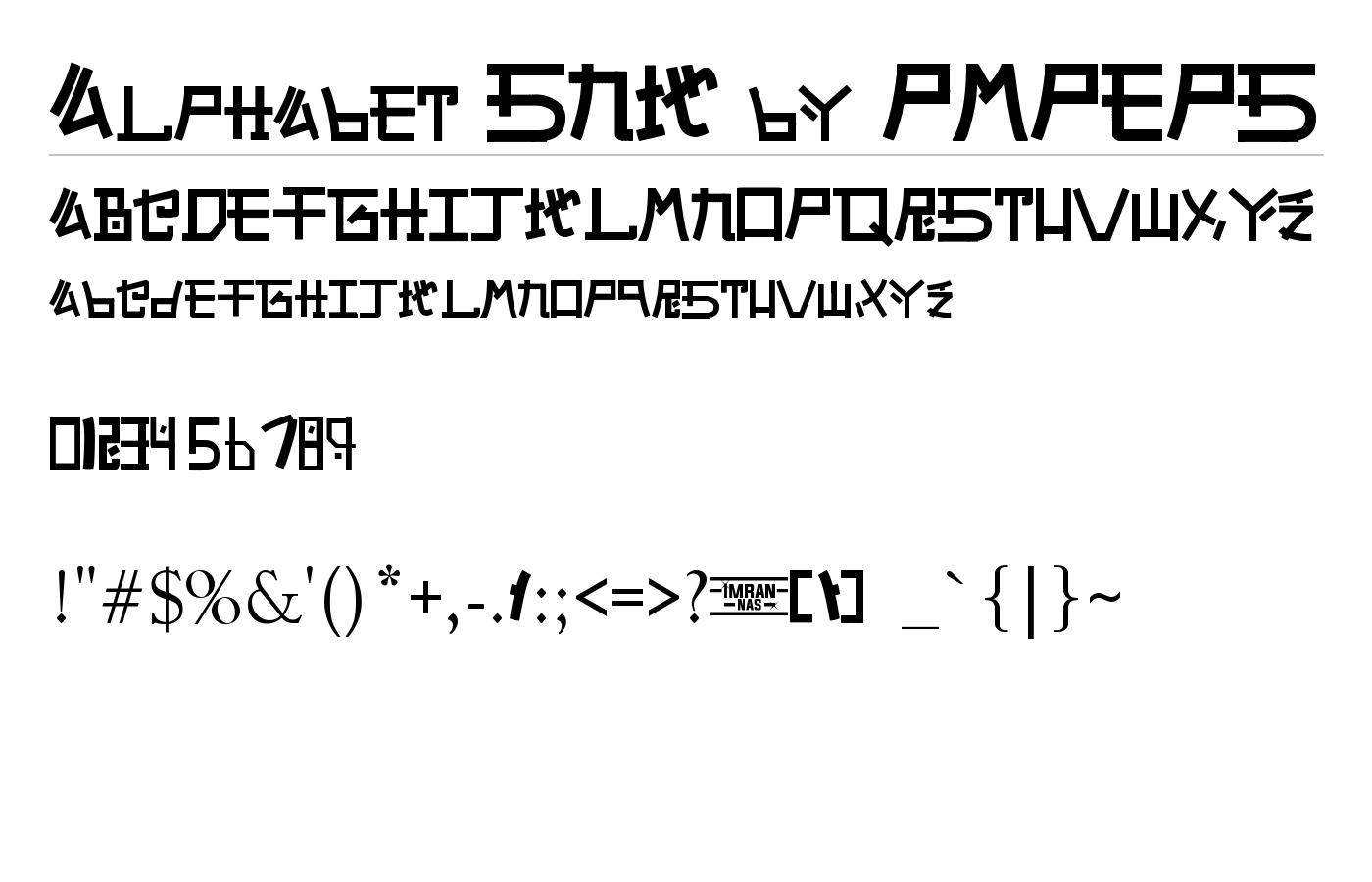
Alphabet SNK by PMPEPS is a bold, condensed display font with a strong geometric and angular design that gives it a distinctive, futuristic feel. Its irregular shapes and sharp edges create a dynamic, edgy personality, making it ideal for eye-catching headlines, posters, or branding that aims to stand out with a modern, unconventional look. This font works particularly well in creative and tech-oriented projects where a unique and impactful statement is desired.
Alphabet SNK by PMPEPS Font
About Alphabet SNK by PMPEPS Font
| Font family | Alphabet SNK by PMPEPS Font |